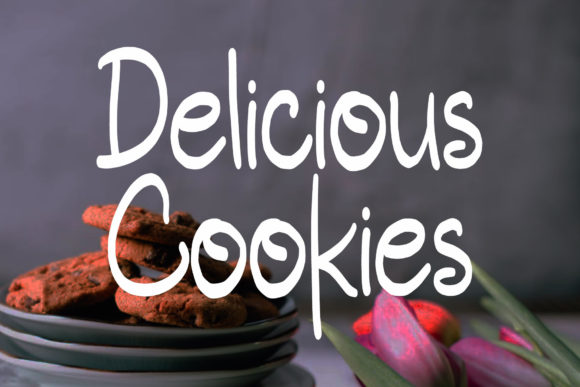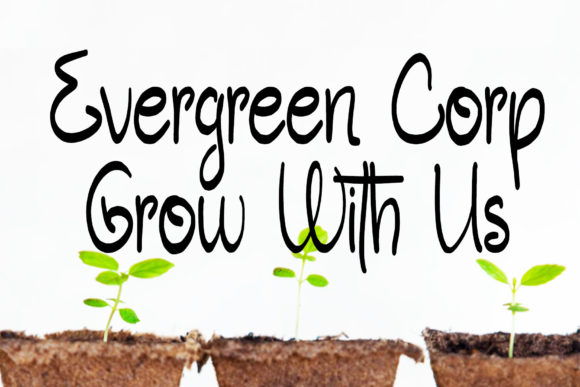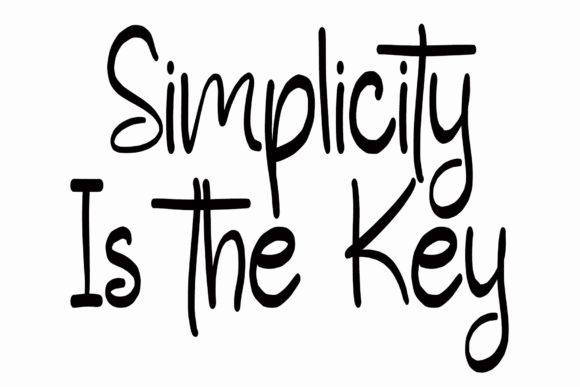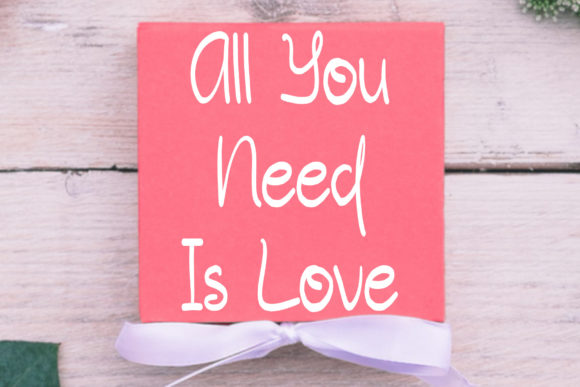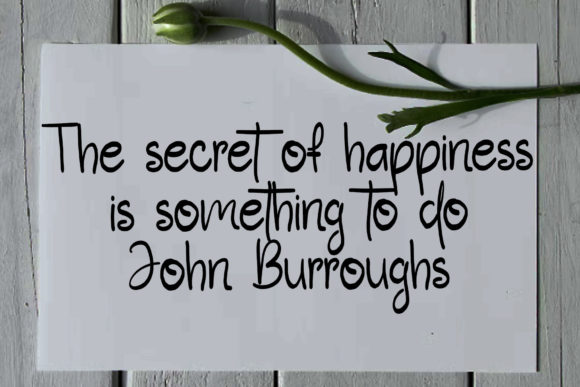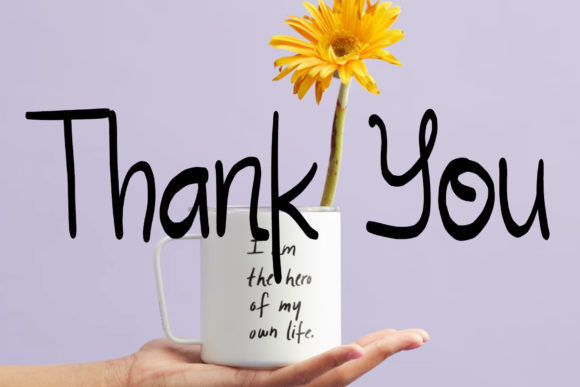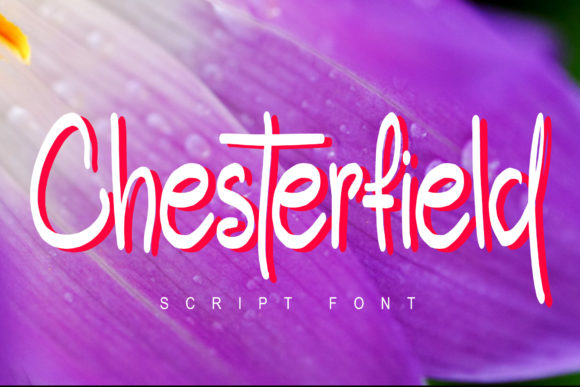
Discover the Charm of Chesterfield Font: A Sweet and Simple Handwritten Style
In the world of typography, fonts play a crucial role in conveying the tone and personality of a design. For those seeking a sweet, simple, and trendy looking handwritten font, Chesterfield is an excellent choice. This versatile font is perfect for adding a casual touch to various design projects, including wedding invitations, thank you cards, quotes, greeting cards, logos, business cards, and more.
What is Chesterfield Font?
Chesterfield is a modern handwritten font that exudes a sense of elegance and friendliness. Its clean and simple lines make it highly legible, while its subtle curves and rounded edges give it a warm and approachable feel. This font is ideal for designers and crafters who want to add a personal touch to their work without overpowering the content.
Key Features of Chesterfield Font
- Sweet and Simple: Chesterfield’s gentle curves and straightforward lines create a sweet and simple aesthetic that’s perfect for designs that require a touch of innocence and charm.
- Trendy Looking: Despite its classic feel, Chesterfield has a distinctly modern edge that makes it suitable for contemporary designs and projects that require a fresh look.
- Handwritten Style: The font’s handwritten style gives it a personal and organic feel, making it perfect for designs that aim to connect with the audience on a more intimate level.
- Versatile: Chesterfield’s versatility is one of its standout features. It can be used across a wide range of design projects, from wedding stationery to branding and advertising materials.
Use Cases for Chesterfield Font
Chesterfield’s adaptability makes it a valuable addition to any designer’s toolkit. Here are some popular use cases for this lovely font:
- Wedding Invitations: Add a touch of romance and whimsy to your wedding stationery with Chesterfield. Its elegant yet casual feel makes it perfect for wedding invitations, save-the-date cards, and thank you notes.
- Greeting Cards: Whether it’s a birthday, holiday, or just because, Chesterfield is an excellent choice for greeting cards. Its friendly and approachable feel ensures your message is conveyed with warmth and sincerity.
- Quotes and Typography: Use Chesterfield to give your quotes and typography projects a personal and artistic touch. Its clean lines and gentle curves make it easy to read and visually appealing.
- Logos and Branding: For businesses that want to convey a sense of friendliness and approachability, Chesterfield can be a great choice for logos and branding materials.
- Business Cards: Stand out from the crowd with Chesterfield on your business cards. Its unique yet professional feel makes it suitable for entrepreneurs, freelancers, and small business owners.
Tips for Using Chesterfield Font Effectively
To get the most out of Chesterfield, consider the following tips:
- Pair with Contrasting Fonts: Combine Chesterfield with a contrasting font to create visual interest and hierarchy in your design.
- Experiment with Colors: Don’t be afraid to experiment with different colors to find the perfect match for your design and brand.
- Use it Sparingly: While Chesterfield is a beautiful font, using it sparingly can make it more effective. Use it for headings, titles, or key messages to draw attention.
Chesterfield font is a sweet, simple, and trendy looking handwritten font that’s perfect for adding a casual touch to your designs. Its versatility, elegance, and friendliness make it suitable for a wide range of projects, from wedding stationery to branding and advertising materials. By incorporating Chesterfield into your design toolkit, you’ll be able to create beautiful, engaging, and effective designs that connect with your audience.